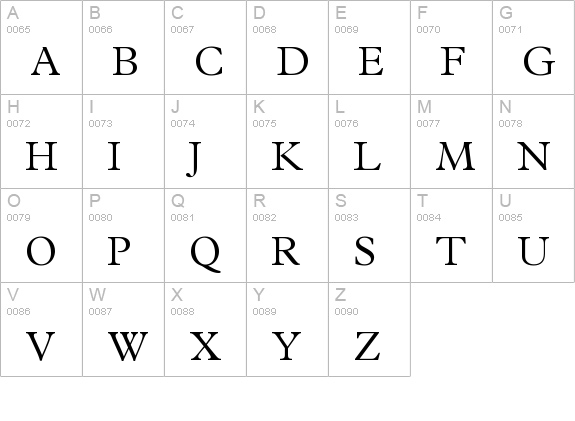
Terminus Light SSi Light is a refined, elegant variant in the Terminus typeface family \xE2\x80\x94 well suited to elegant body text, refined sub-headings, and luxury branding.
Terminus Light SSi Light font is a beautifully crafted typeface that exudes elegance and sophistication. With its delicate strokes and refined curves, this font is perfect for projects that require a touch of sophistication and class. The Terminus Light SSi Light font stands out with its graceful letterforms, making it an excellent choice for high-end branding, editorial layouts, and wedding invitations. Its light weight adds a touch of subtlety and grace to any design, while still maintaining excellent legibility. One of the greatest advantages of the Terminus Light SSi Light font is that it is freely available to download at FontsMarket.com. This means that you can easily access this stunning font without any cost, making it an ideal choice for designers on a budget or anyone looking to add a touch of refinement to their projects without breaking the bank. Whether you are working on a logo design, a magazine layout, or a website, the Terminus Light SSi Light font is a versatile and reliable option. Its timeless appeal and effortless beauty will elevate your designs and leave a lasting impression on your audience. Don't miss out on the opportunity to enhance your creative projects with the Terminus Light SSi Light font. Download it for free at FontsMarket.com and unlock a world of possibilities for your design endeavors.